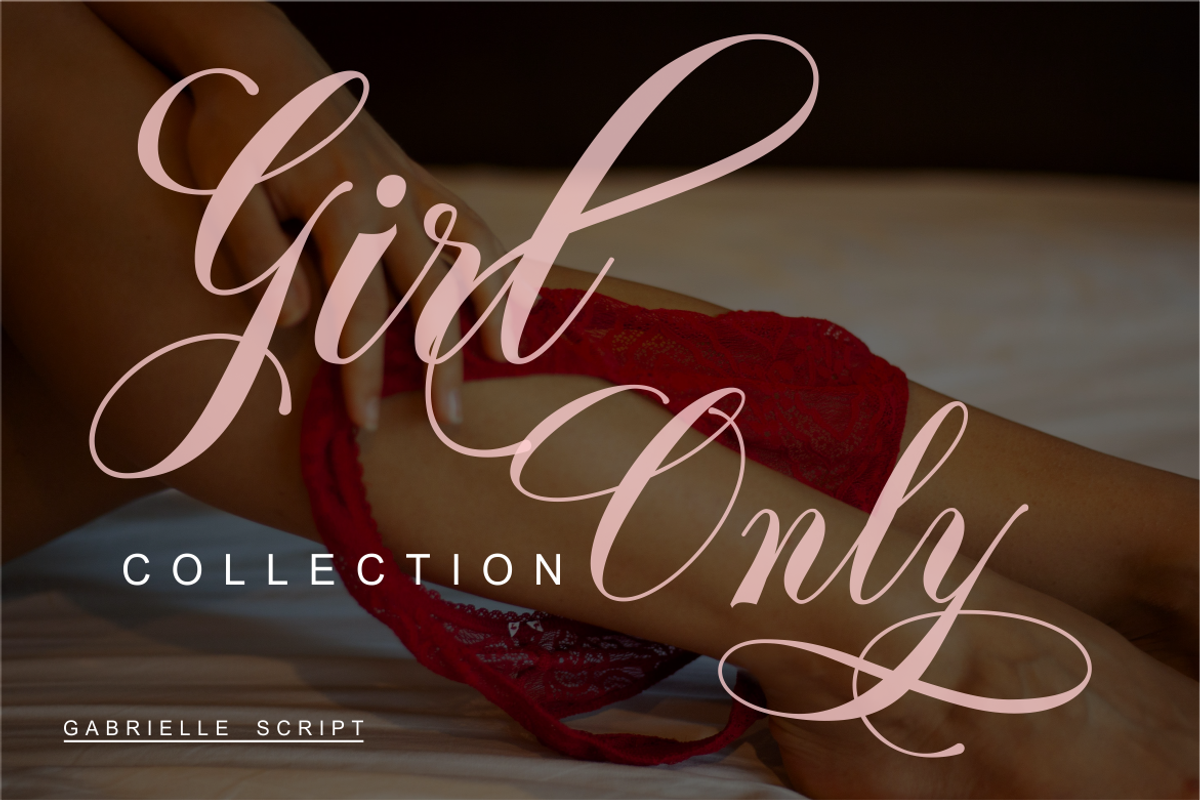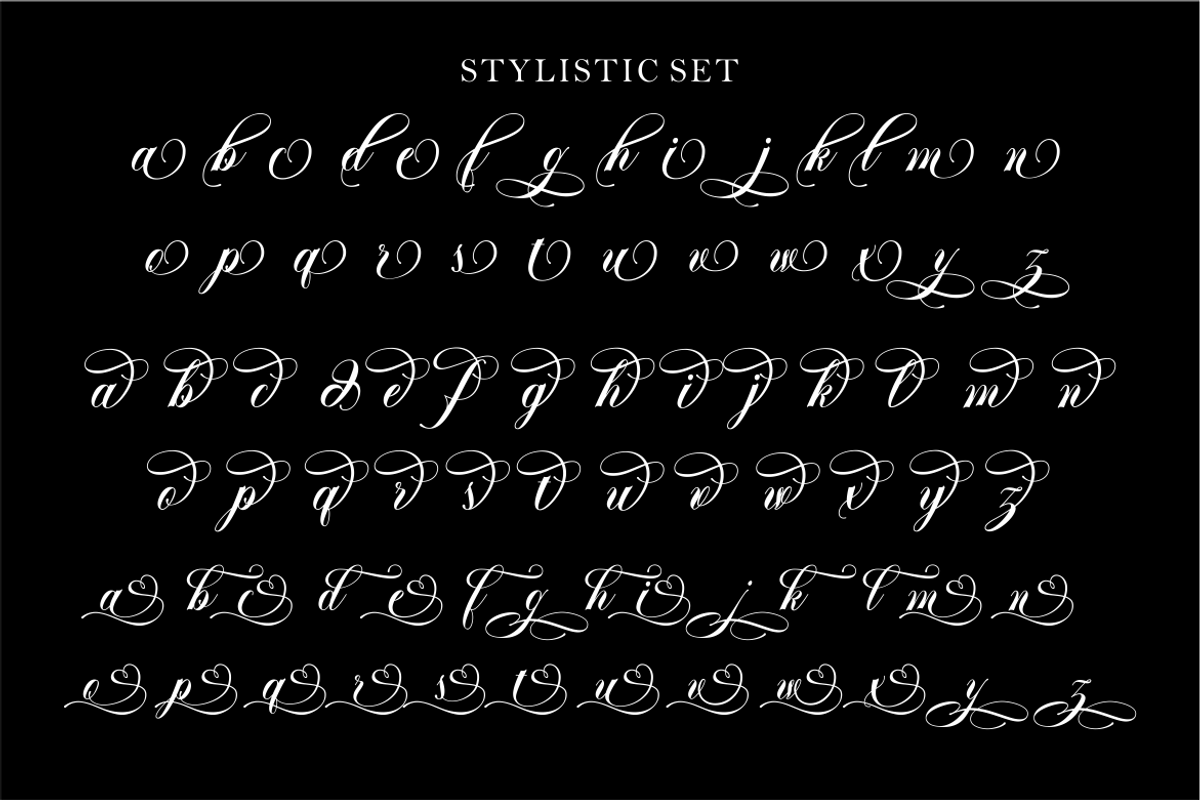
Gabrielle Script
Introducing of our new product the name Gabrielle | Calligraphy Script. Gabrielle Fonts includes uppercase and lowercase letters, numerals, a large range of punctuation and ligatures. All lowercase letters include ending swashes and alternative font.